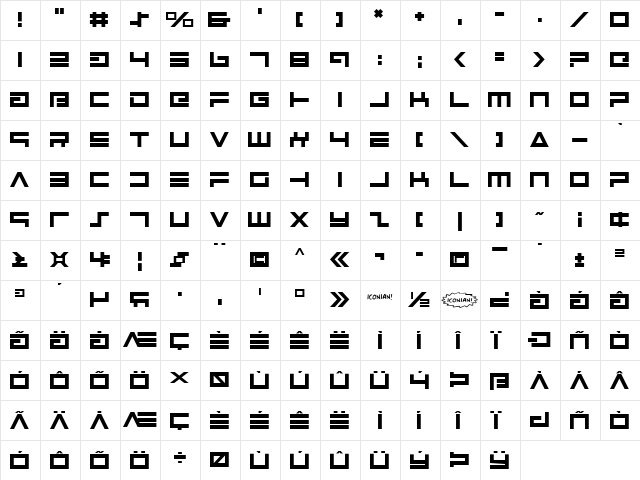
Avenger Regular
Design Context for Avenger Typeface
Avenger is a composed and adaptable typeface that performs quietly and consistently across a wide range of design contexts.